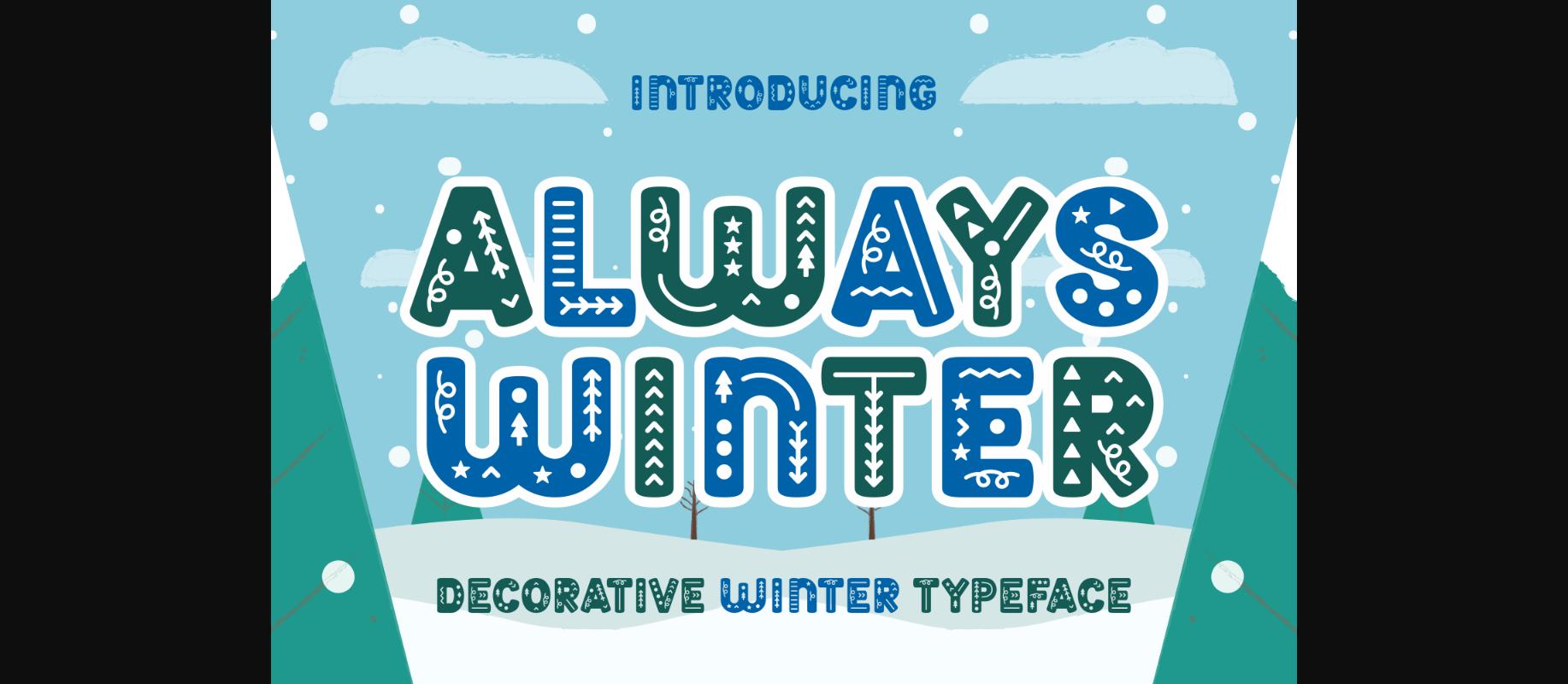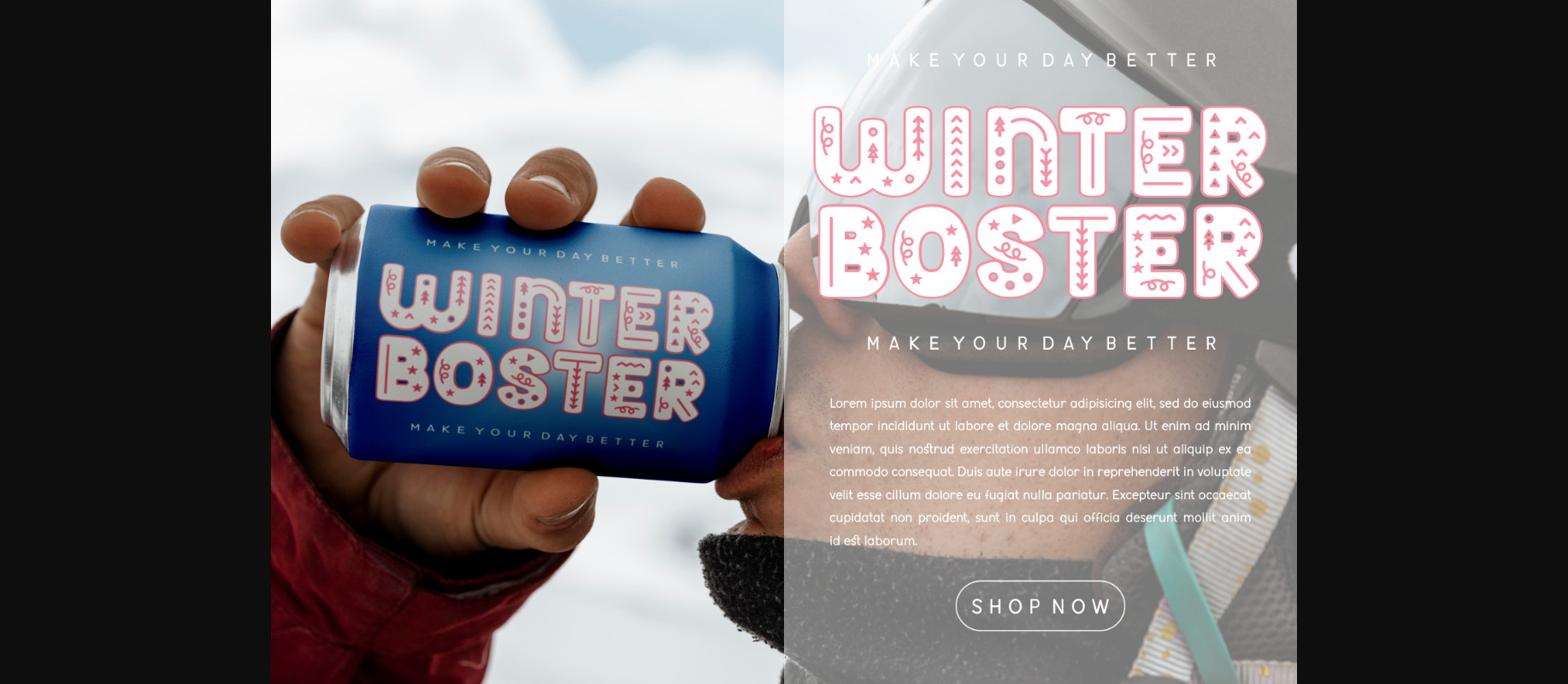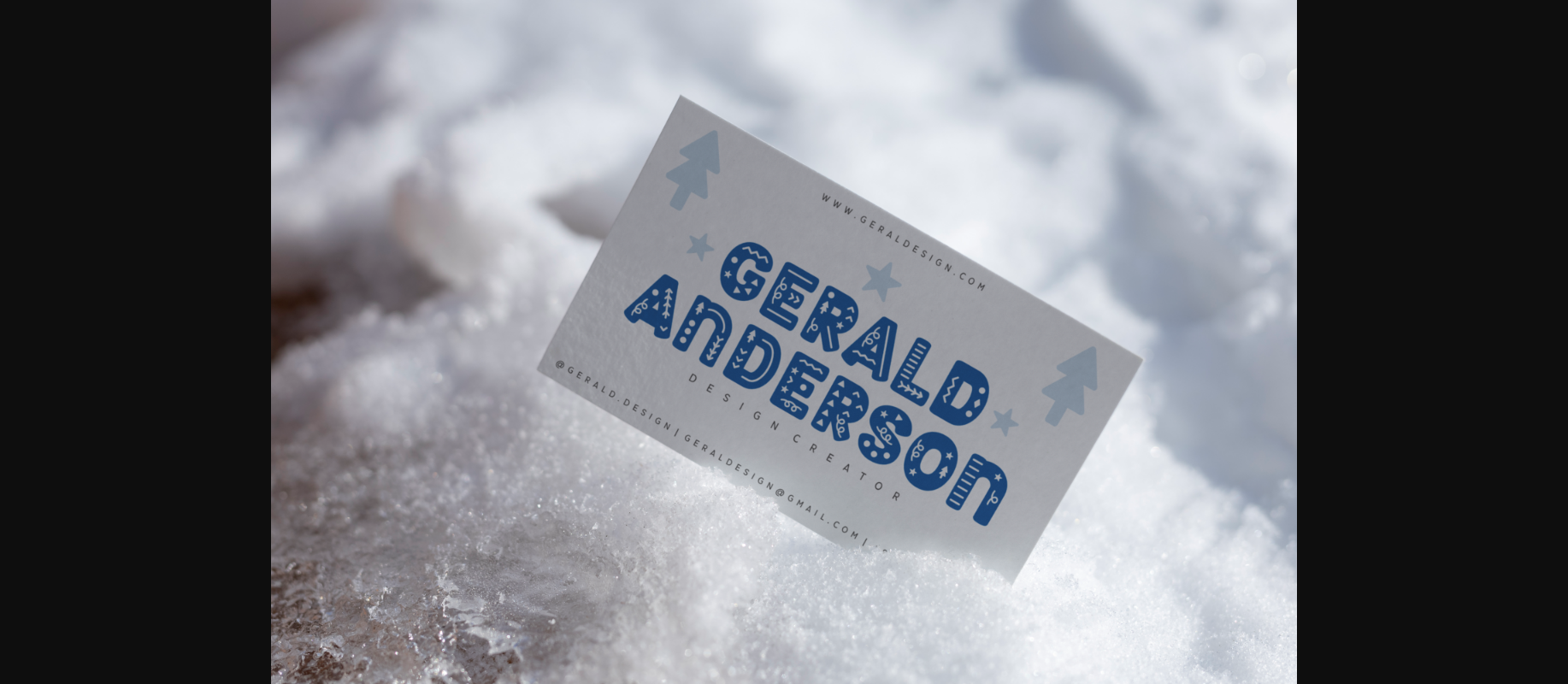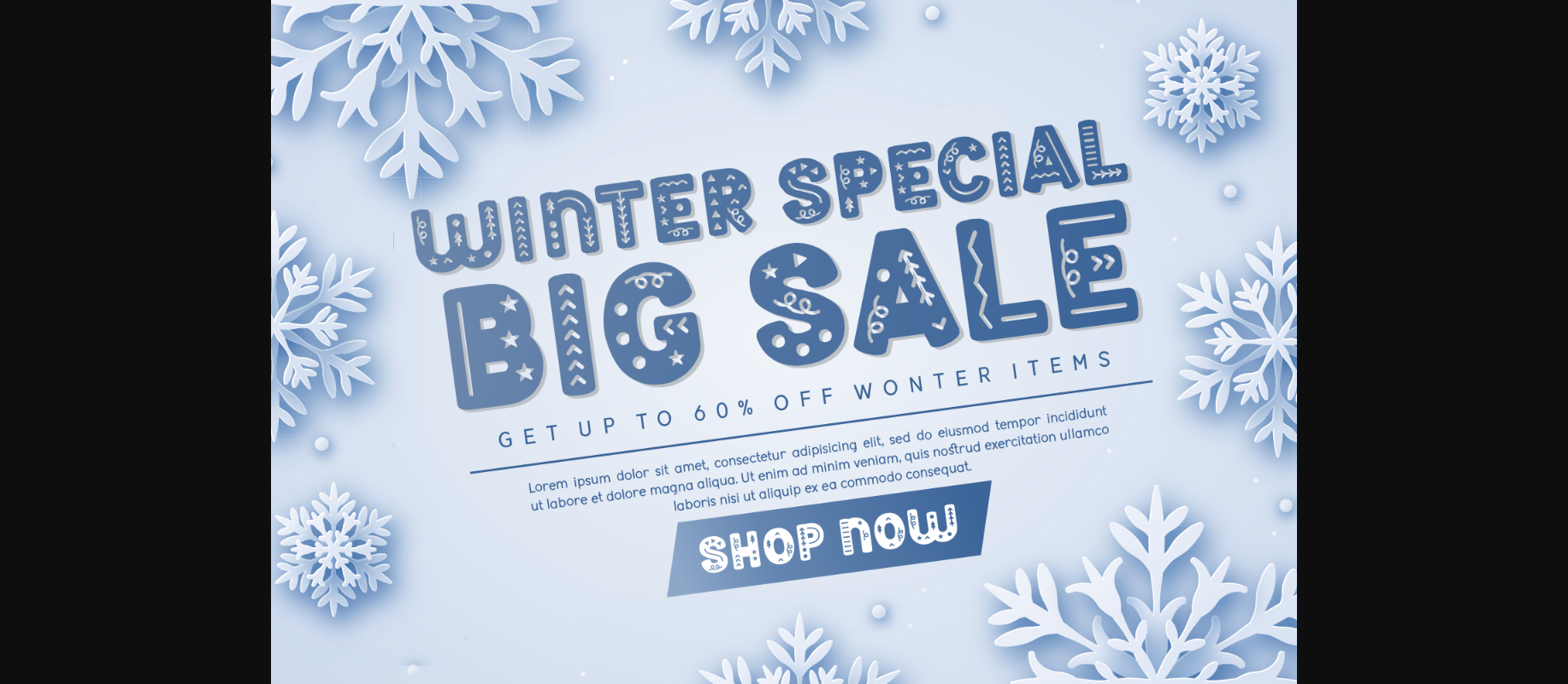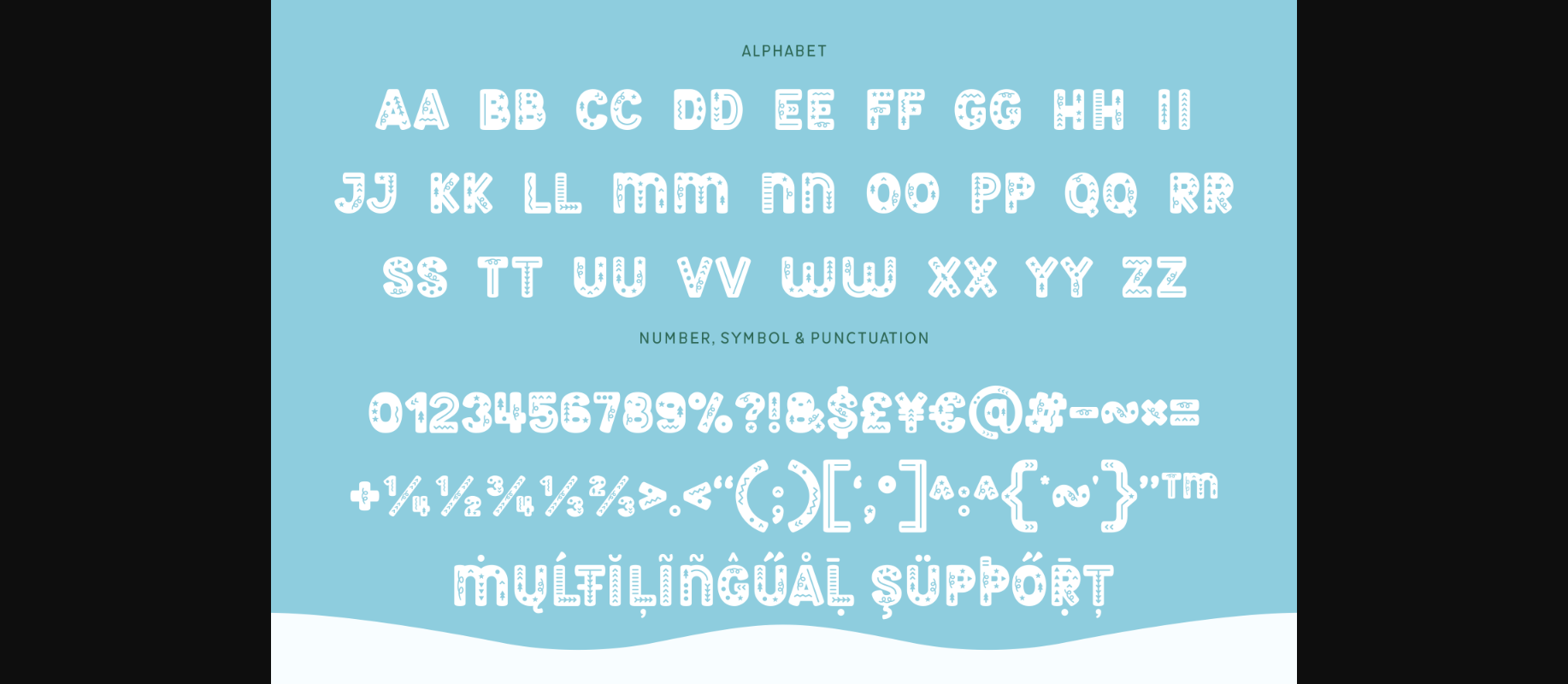
About Always Winter Font
Always Winter is a fabulous decorative font with joyful winter doodles. Create outstanding typography designs with this charming font that looks perfect on Christmas invitations, cards, advertising materials, gift tags, and more.